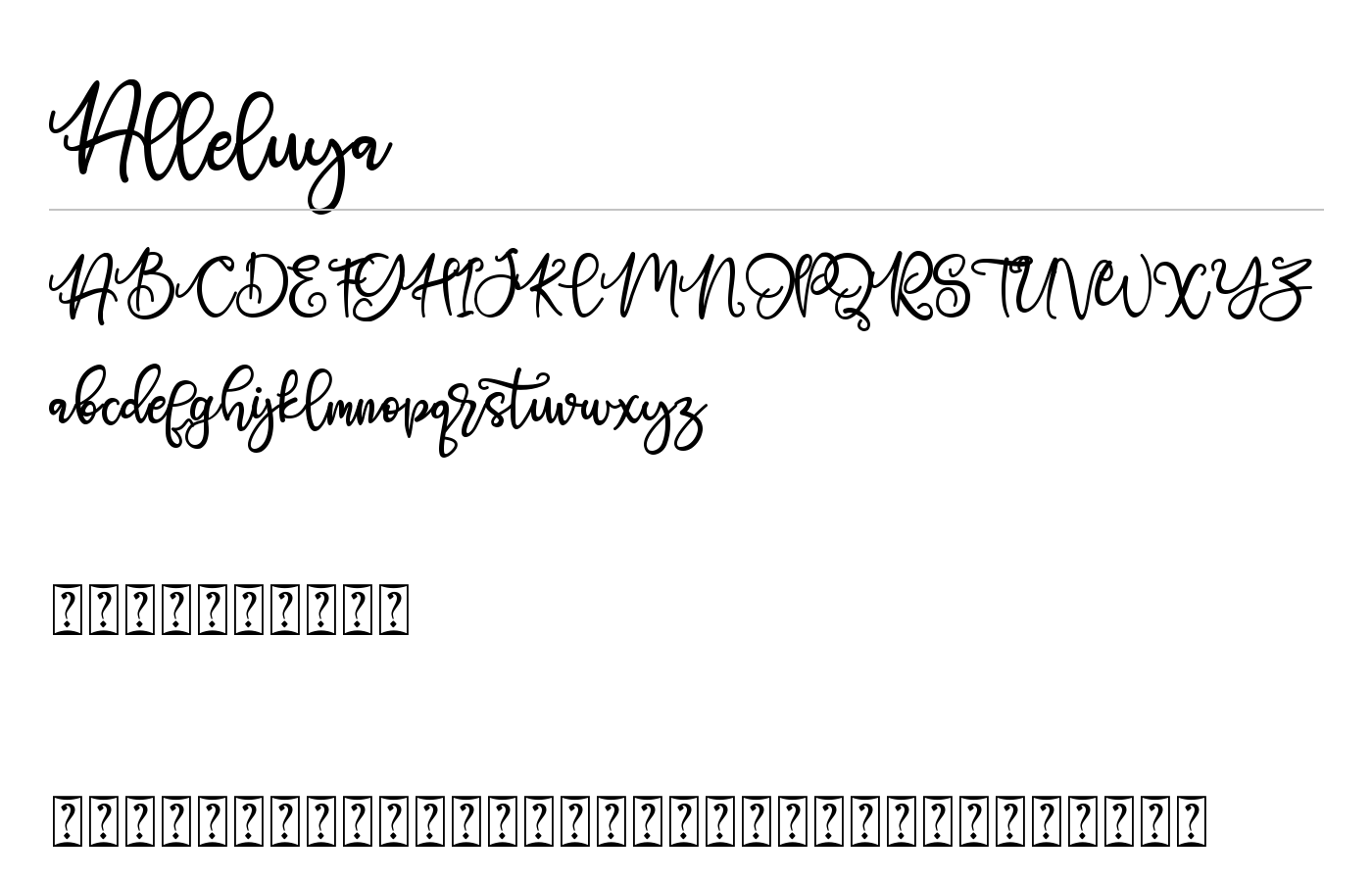
Alleluya is a lively and elegant script font with a hand-drawn, calligraphic style that features fluid, connected letterforms and playful loops. Its medium weight and graceful strokes make it ideal for adding a personal, artistic touch to invitations, branding, and creative projects that seek a warm and approachable feel. This font works best in headlines or decorative settings where its expressive character can truly shine.
Alleluya Font